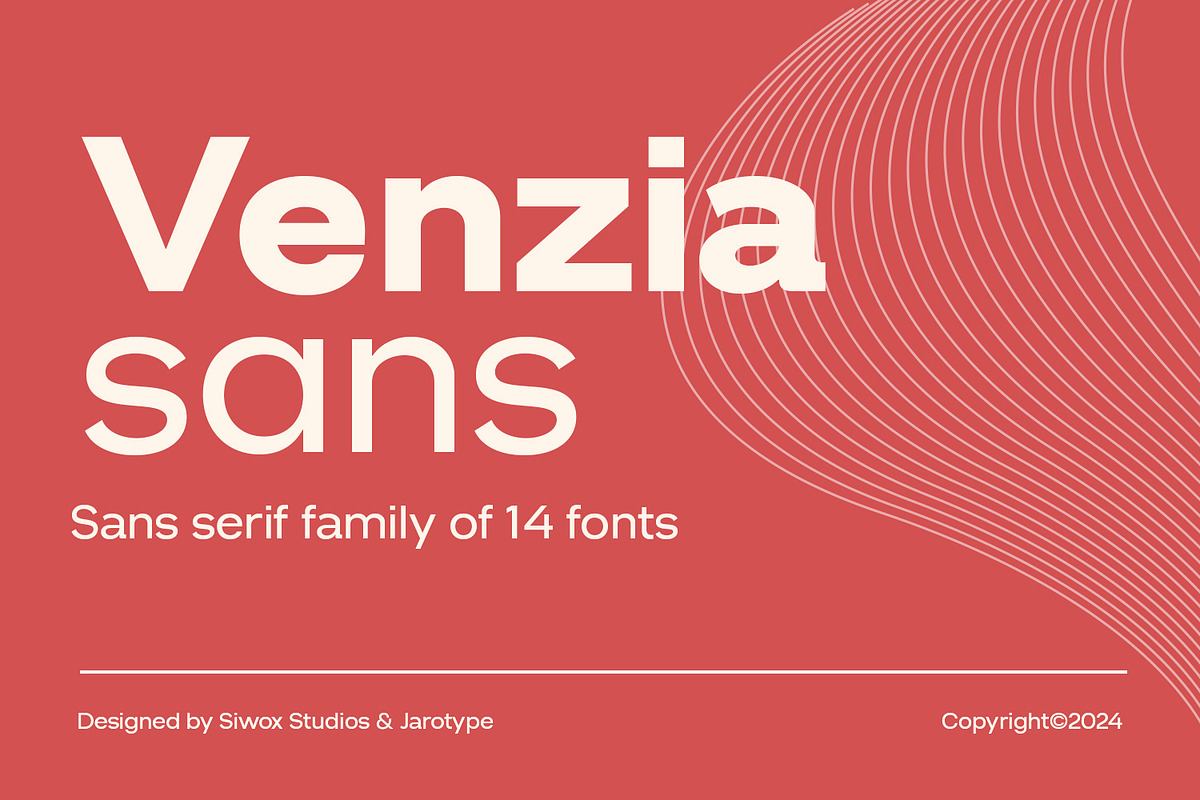
The Venzia Sans Family Fonts Free Download is a versatile and modern sans-serif font family that offers a sleek, clean look for any design project. Perfect for logos, websites, branding, and print materials, this font family provides a wide range of weights and styles to suit all your creative needs. Please note, for commercial use, a license must be purchased. You can download it for free for testing purposes.
With its balanced design and contemporary appeal, the Venzia Sans Family Fonts Free Download is ideal for both professional and casual projects. Whether you're designing a corporate brand, creating a stylish website, or working on social media graphics, this font family ensures that your work remains modern and readable.